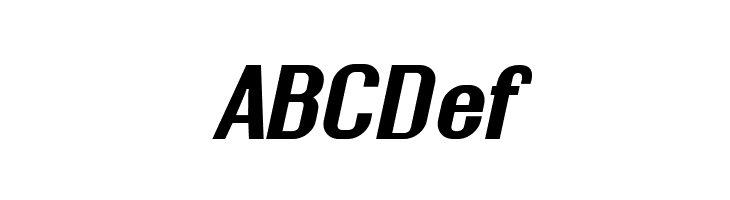
Alamoana Personal Use Regular Font
- Font: Alamoana Personal Use Regular
( Fonts by Ben Weiner - www.readingtype.org )
A bold, oblique font with a modern and dynamic style.